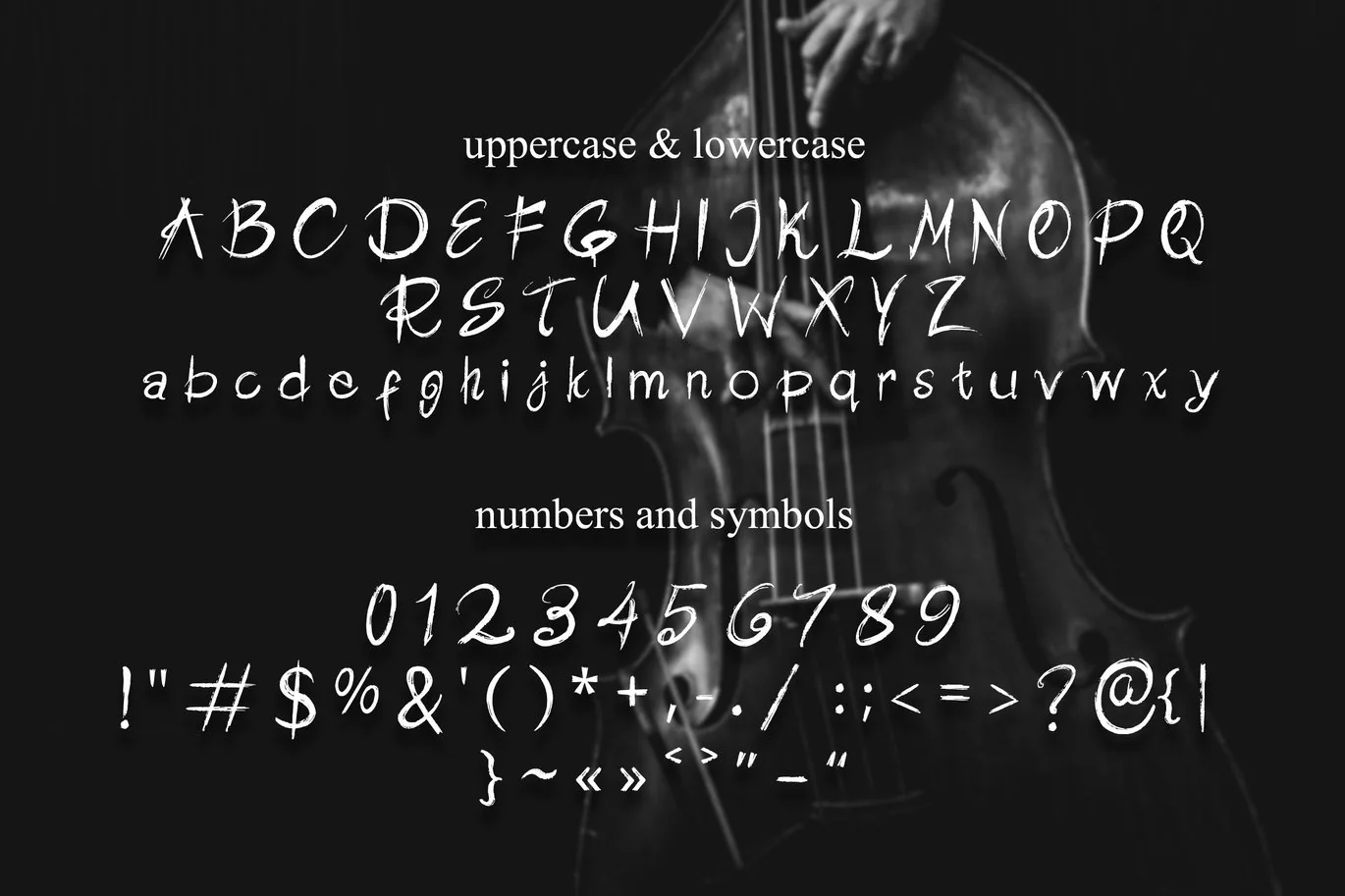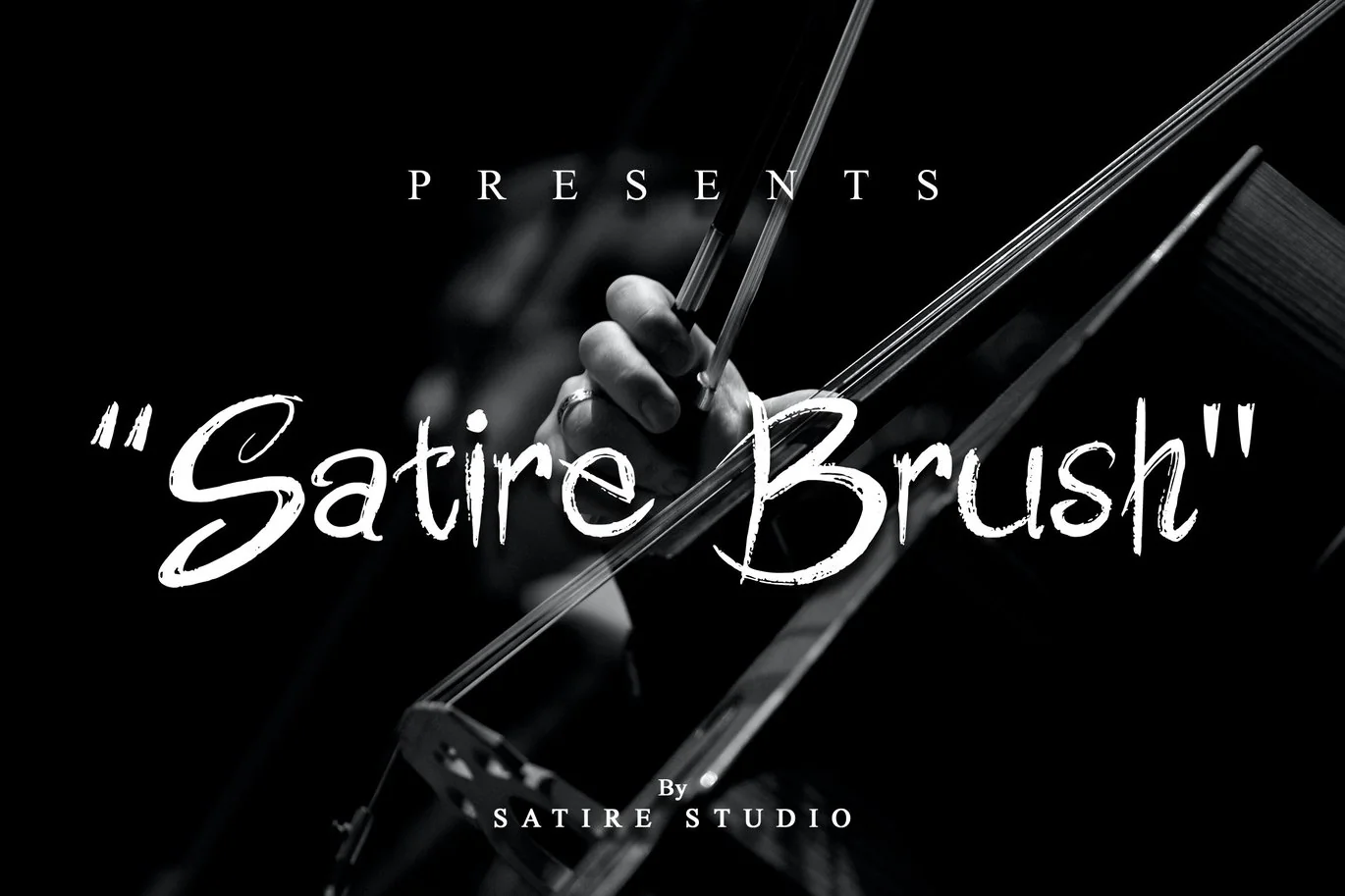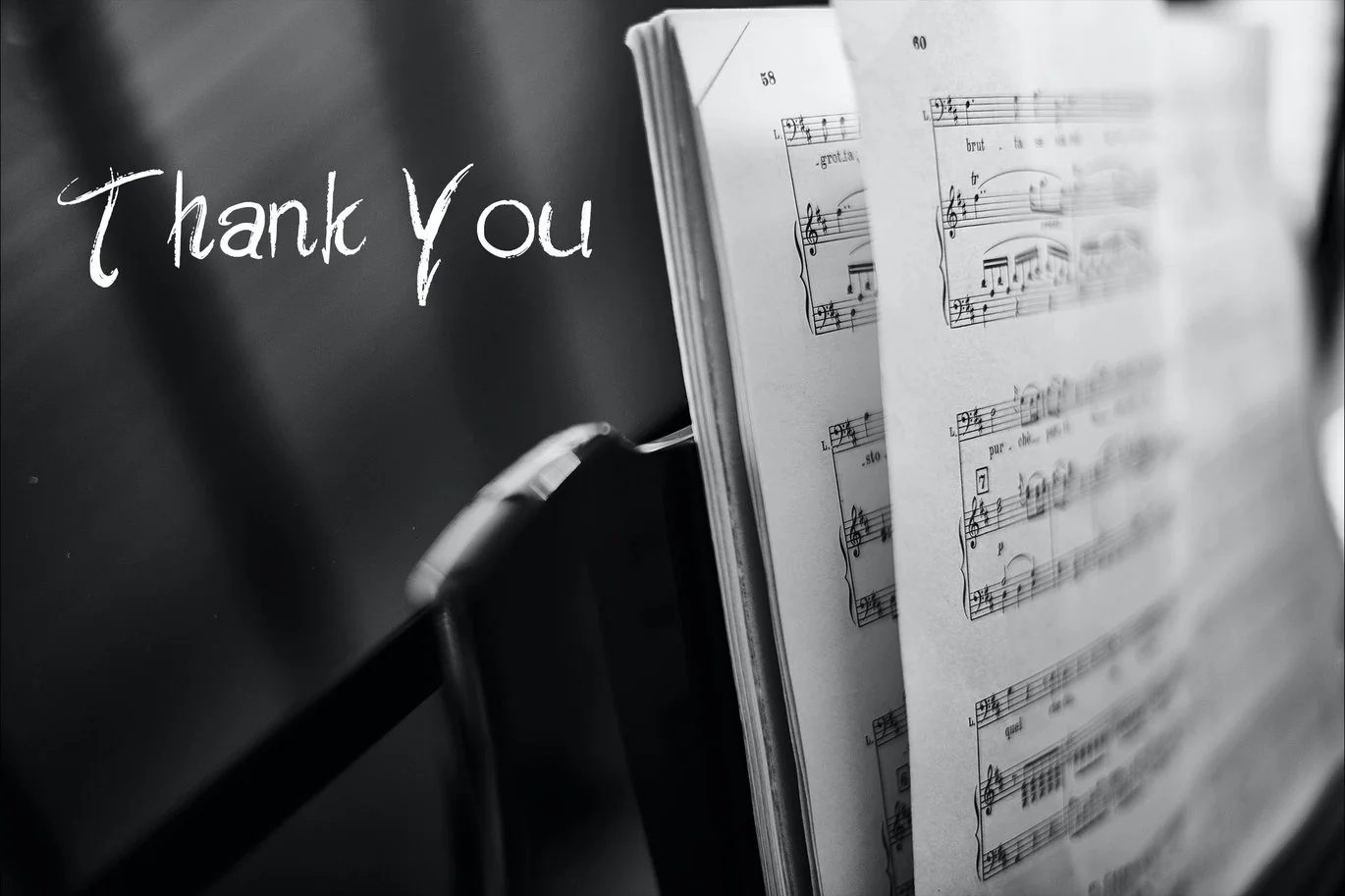
Satire Brush – Handwrite Font
Satire Brush | Handwrite Font, So beautiful on invitation like greeting cards, branding materials, business cards, quotes, posters, and more!